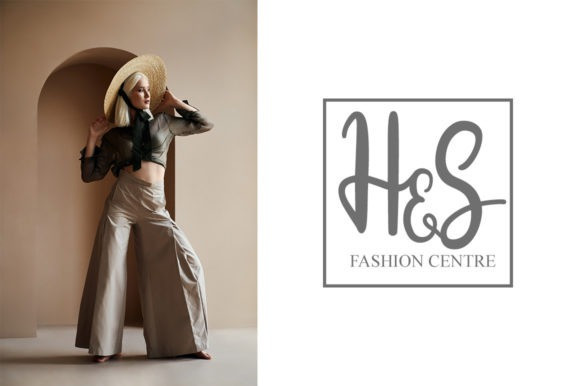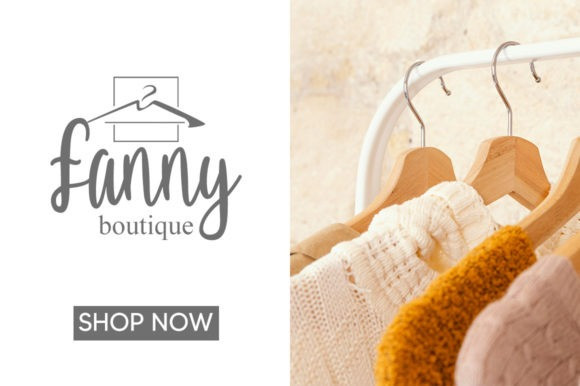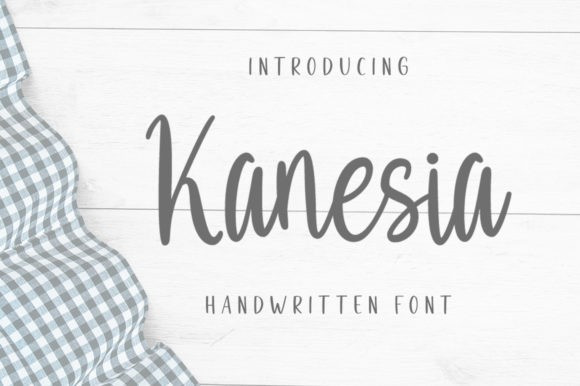
Kanesia Font
Kanesia Script Font is a beautiful, lovely script font. Fall in love with its well balanced and incredibly versatile style, and use it to create spectacular designs!